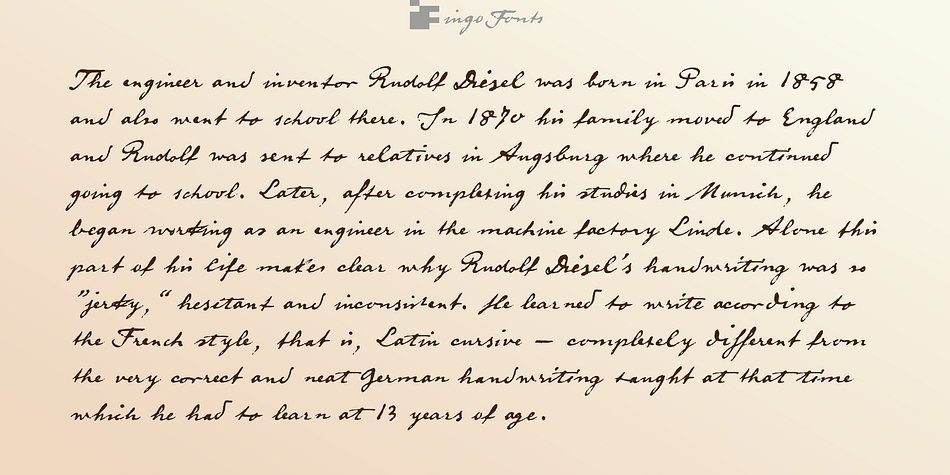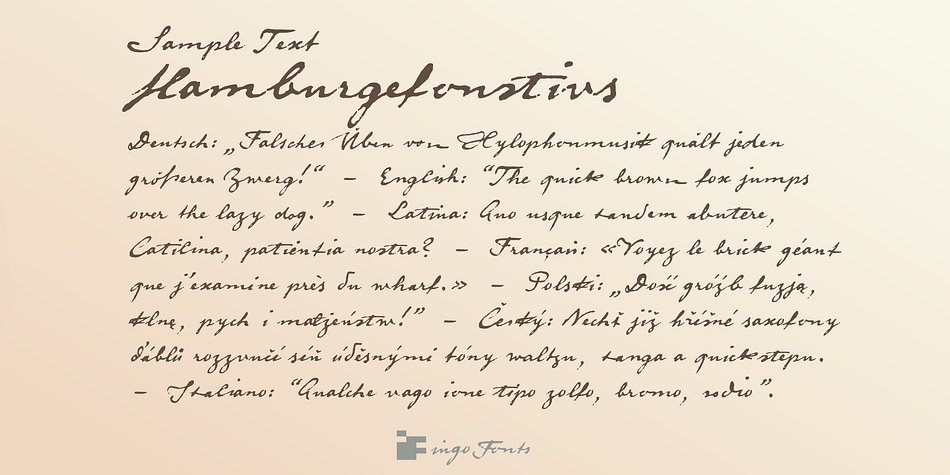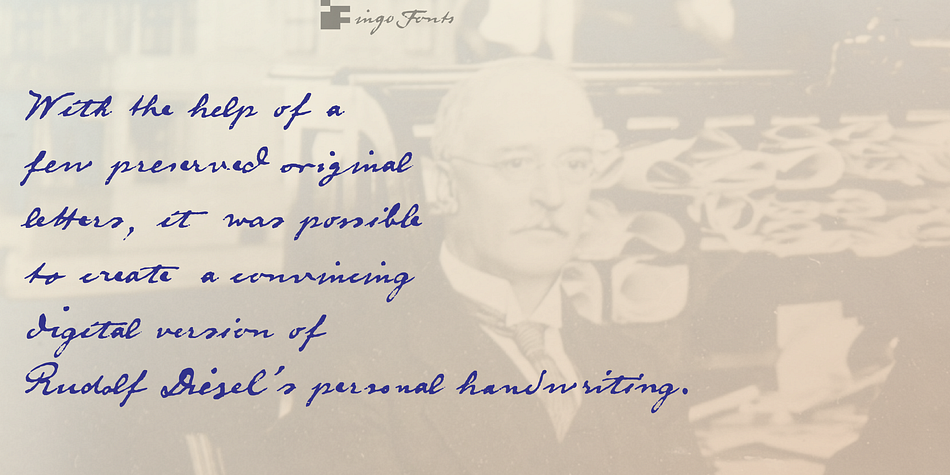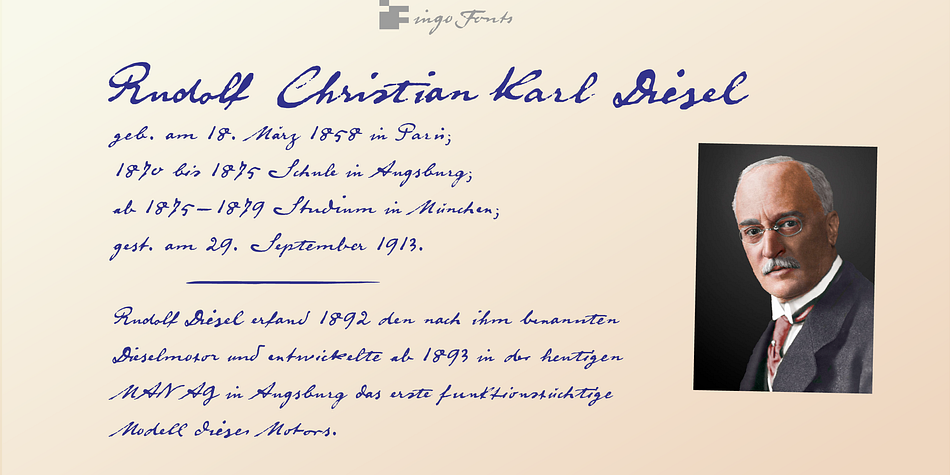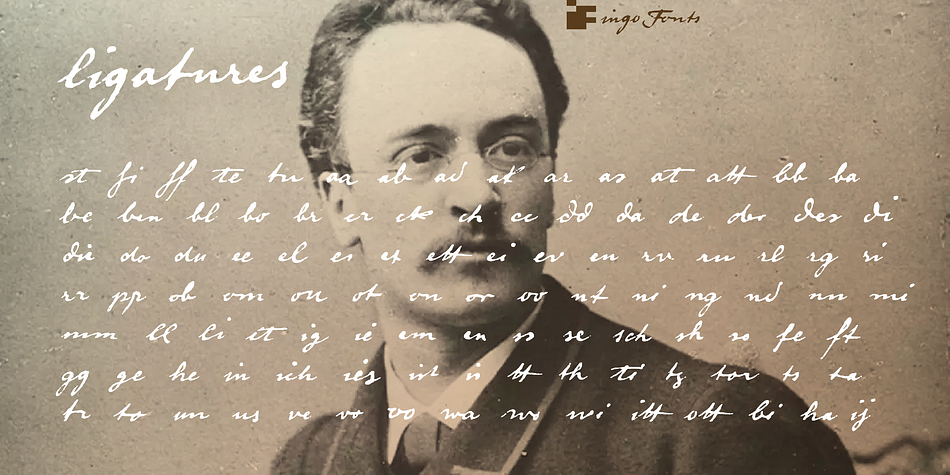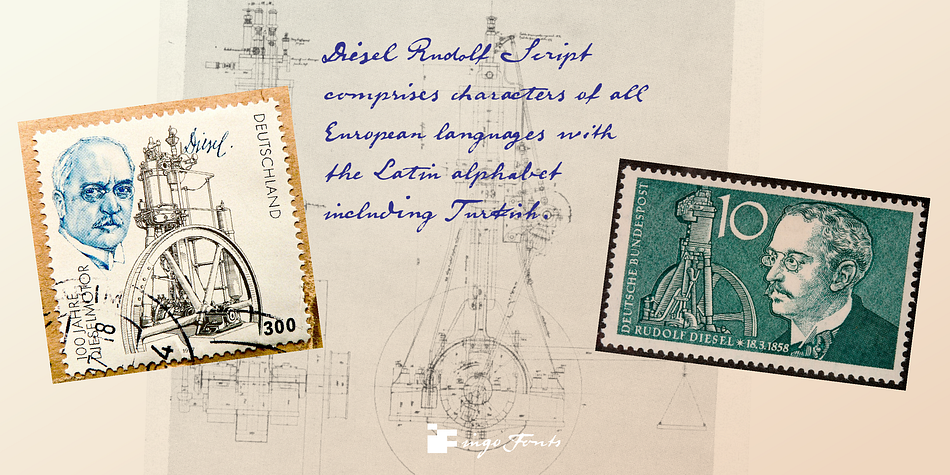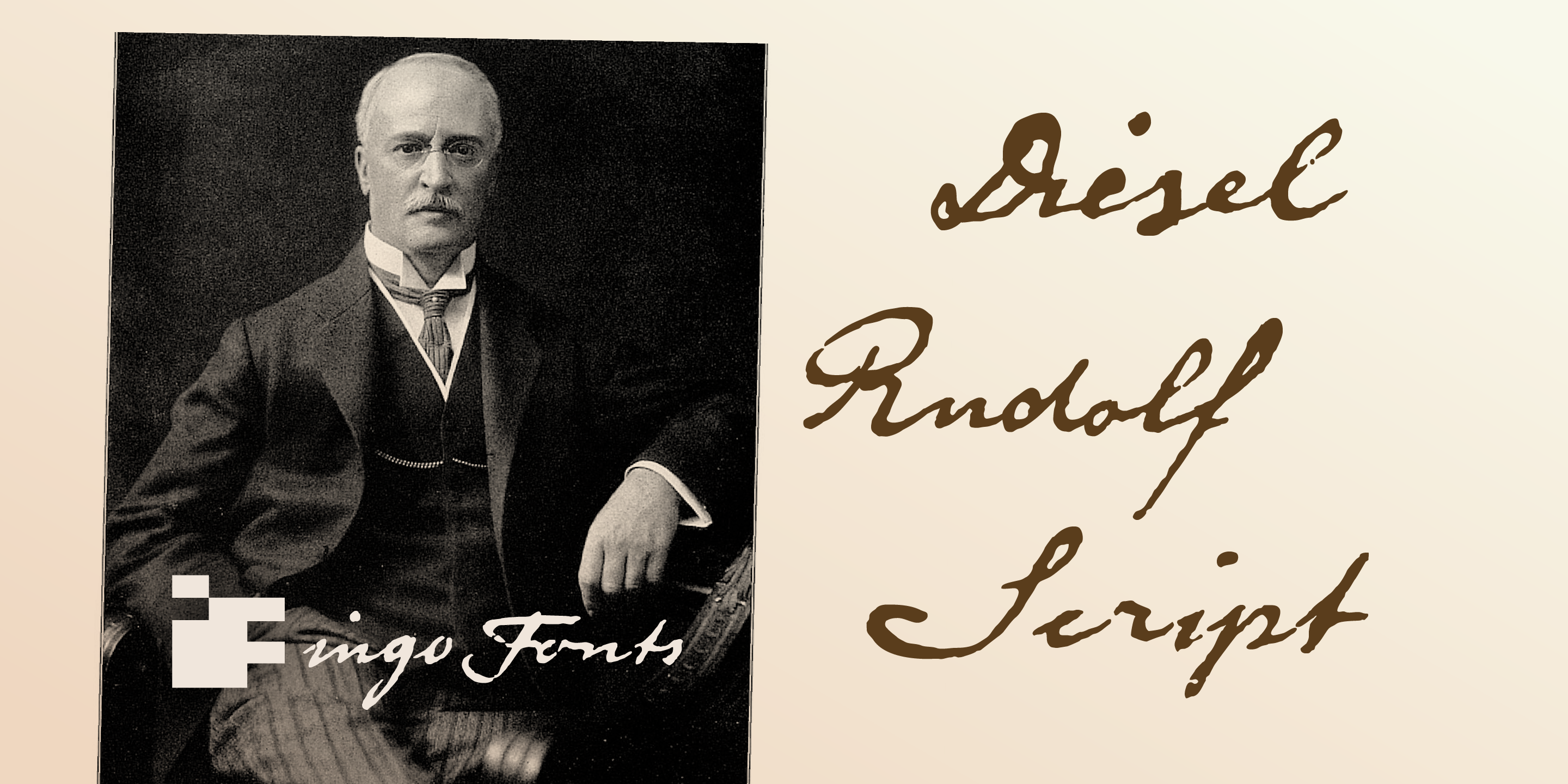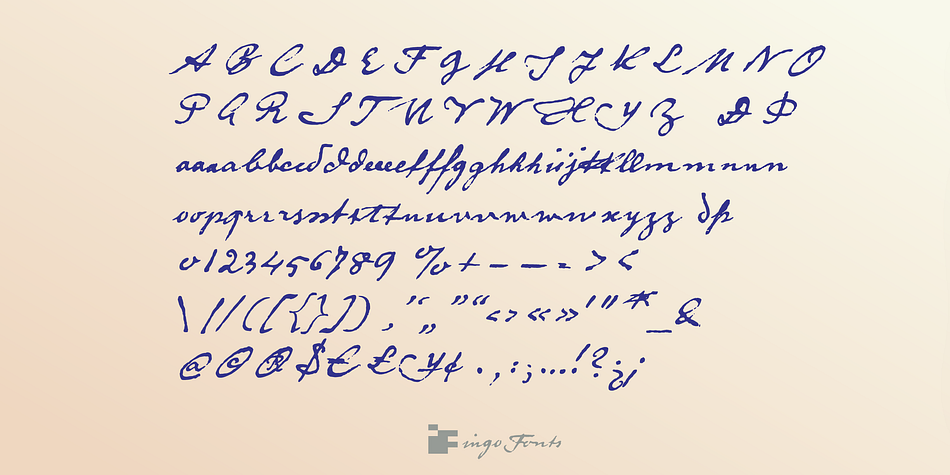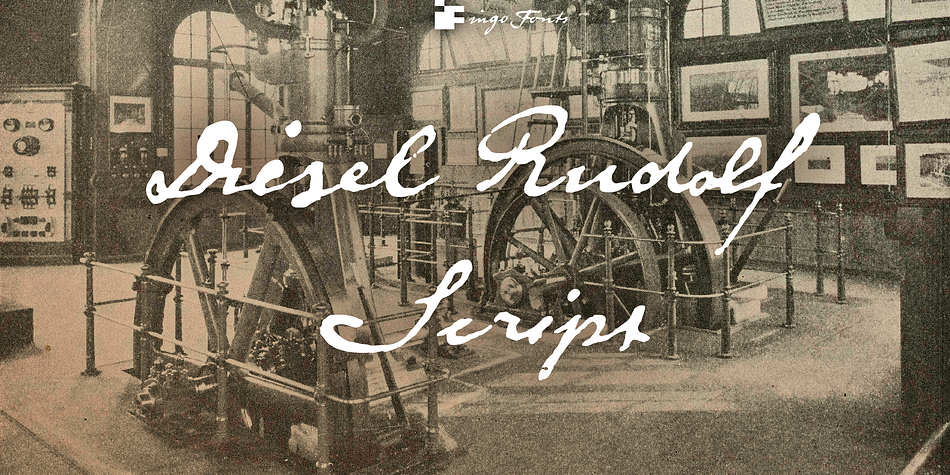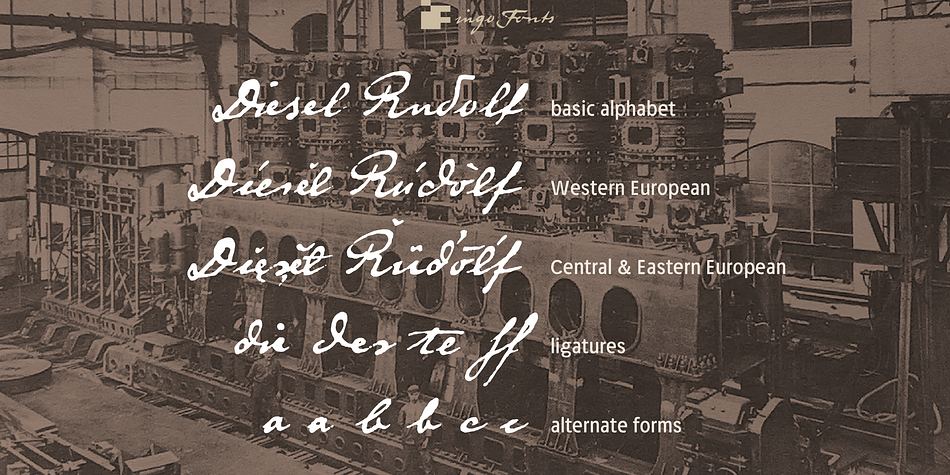
Designed by Ingo Zimmerman, Diesel Rudolf Script is a historical and script font published by ingoFonts.
Write like the inventor of the diesel engine – it’s possible with the Diesel Rudolf Script (patterned after the original handwriting of Rudolf Diesel)…
In 2008 the city of Augsburg and the MAN Group celebrated the 150th birthday of Rudolf Diesel, inventor of the diesel engine which was named after him.
With the help of a few preserved original letters, it was possible to create a convincing digital version of Rudolf Diesel’s personal handwriting.
The diversified images of the font Diesel Rudolf Script make more than 80 ligatures and stylistic alternates possible which can be selected with help from the OpenType functions Ligatures and Discretional Ligatures.